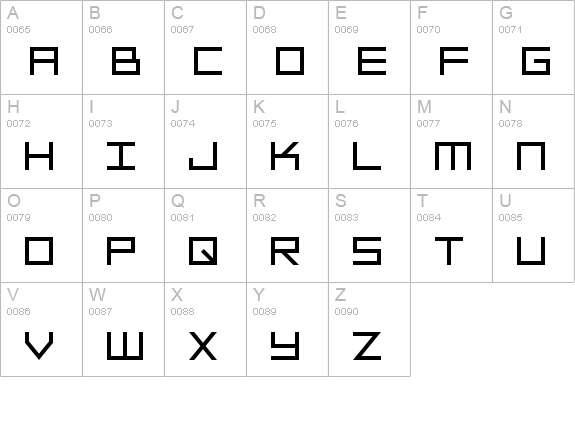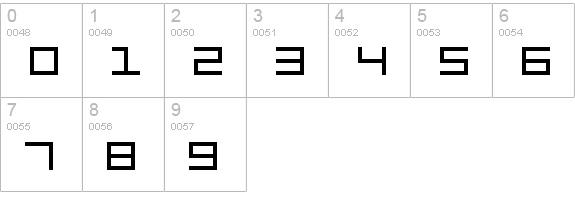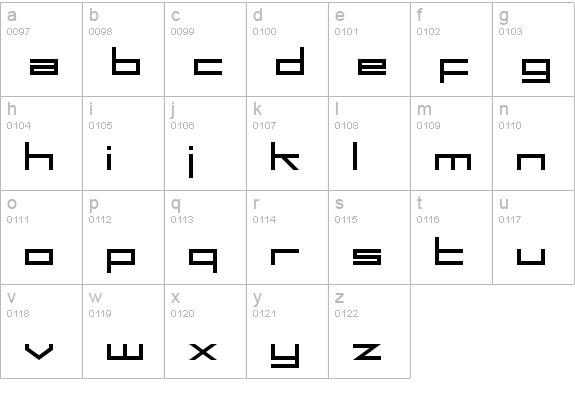
SF Square Head Font Details
SF Square Head is a remarkable font that exudes a sense of modernity and sophistication. Its perfectly square shape and clean lines make it the ideal choice for those in search of a sleek and polished design. With its bold and confident appearance, SF Square Head commands attention and leaves a lasting impression. This font is not only visually stunning but also highly versatile. Its distinct geometric structure lends itself well to a wide range of applications, from logo design to titles and headlines. Whether you're creating a striking poster or designing a captivating website, SF Square Head is sure to elevate your project to new heights. But what truly sets SF Square Head apart is its accessibility. This font is available for free, making it an invaluable asset for designers, students, and anyone in need of a high-quality typeface. Thanks to FontsMarket.com, you can easily download SF Square Head and start using it in your projects today. So why wait? Embrace the power of SF Square Head and unleash your creativity with this extraordinary font. Its seamless legibility, stunning aesthetics, and accessibility make it a must-have for any design enthusiast. Download SF Square Head for free at FontsMarket.com and discover the endless possibilities it holds for your next project.